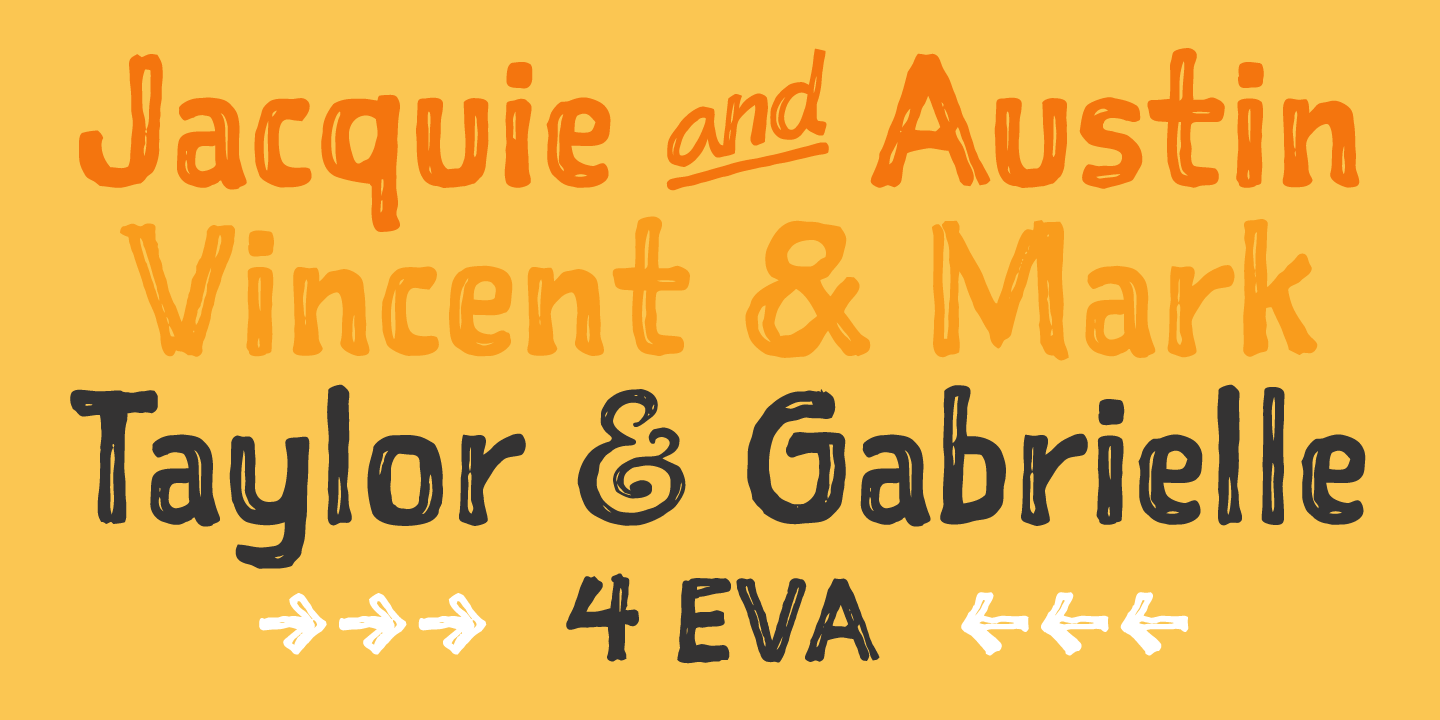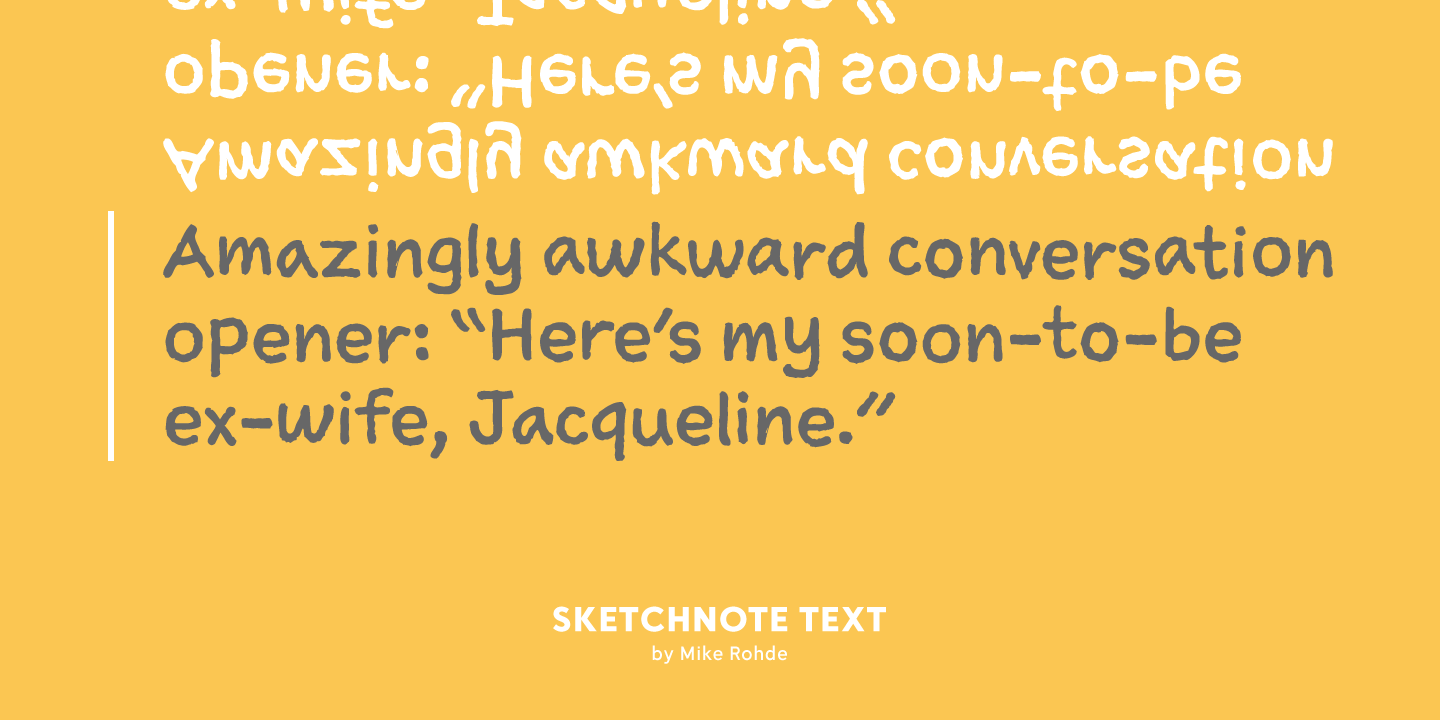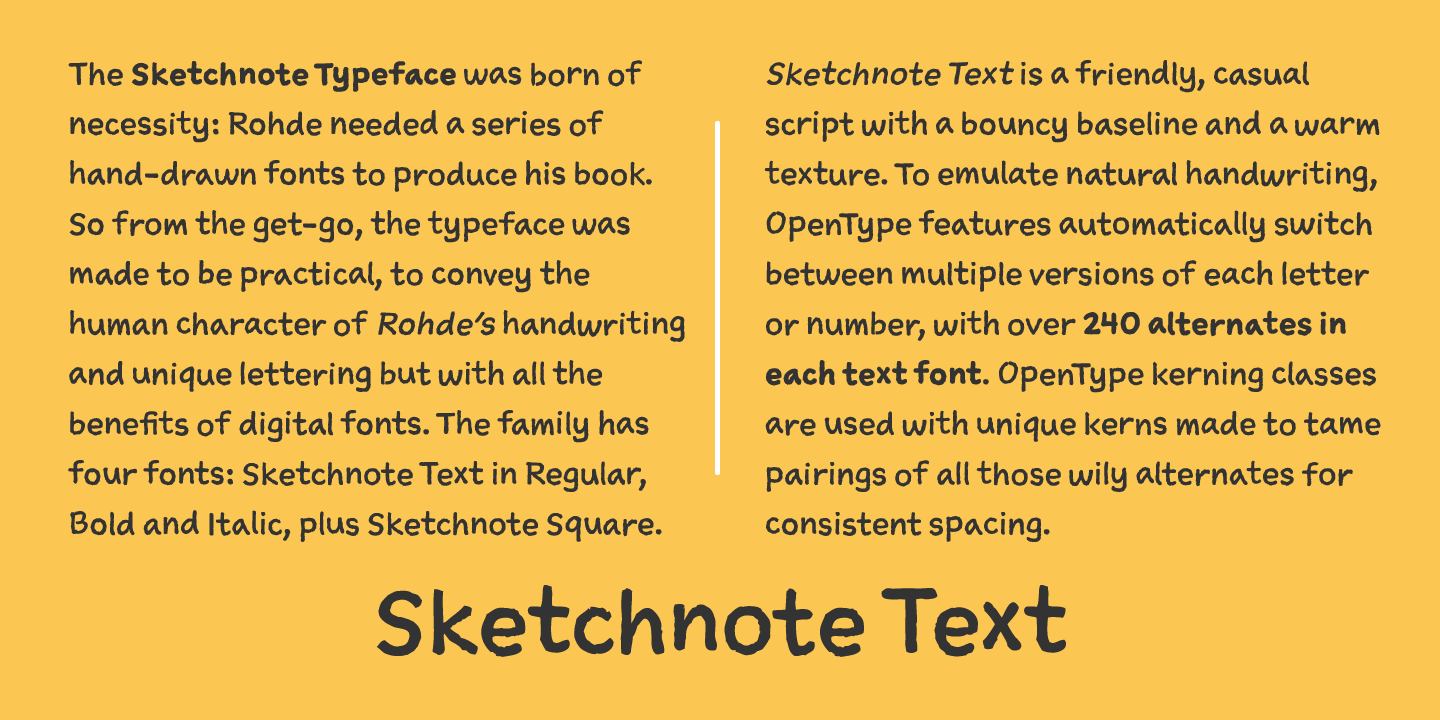
Sketchnote
Buy NowThe Sketchnote Handbook is drawn as much as it is written. The author, designer and illustrator Mike Rohde saught to make an inspirational, visually unique book that introduces readers to sketchnoting?a practical art Rohde developed to translate ideas presented at live events into easily recalled bits of information.
The Sketchnote Typeface was born of necessity: Rohde needed a series of hand-drawn fonts to produce his book. So from the get-go, the typeface was made to be practi